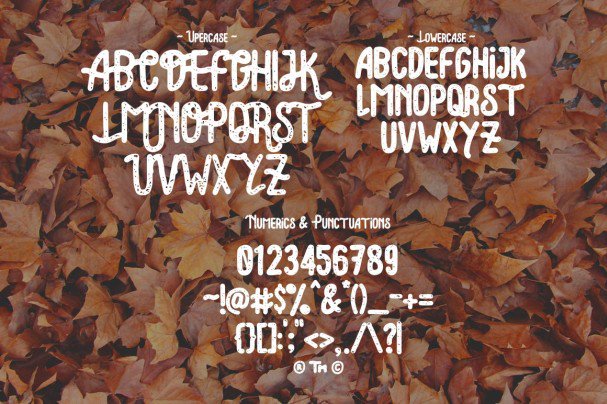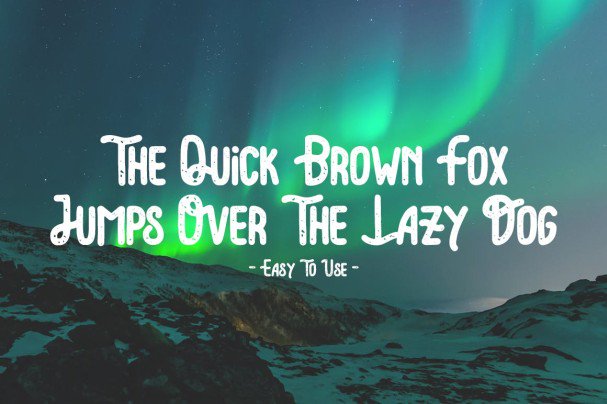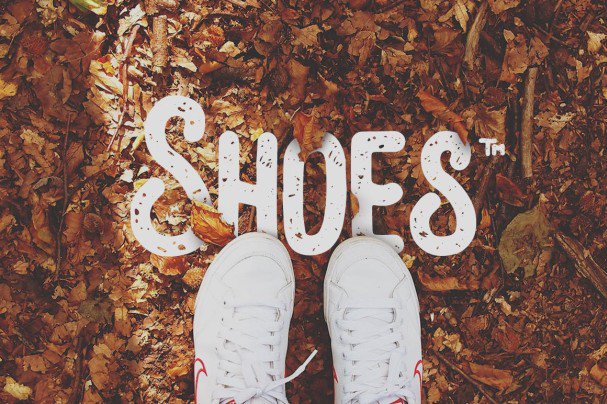
Lonsdale Typeface
LONSDALE Typeface Use for awesome display, labeling, clothing, badges, gigs, album covers, logos, and much more
| Classification: | Brush Fonts, Handwritten Fonts, Script Fonts |